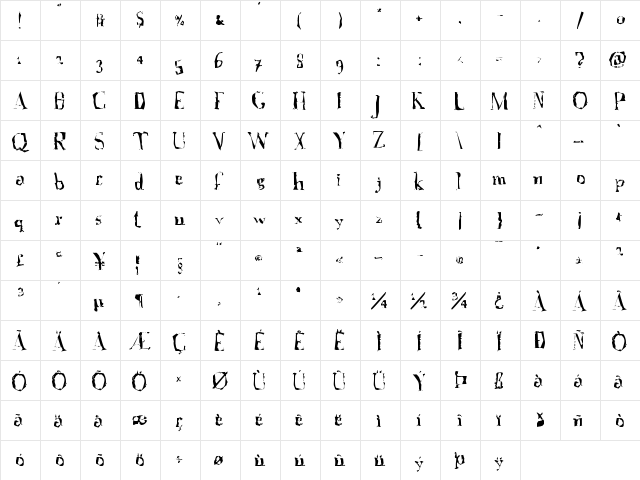
A Font with Serifs. Disordered Regular
Design Context for A Font with Serifs. Disordered Typeface
A Font with Serifs. Disordered brings classic typographic sensibility to the table — its serifs and measured letterforms reflect centuries of print heritage.
Pro Tip: Set A Font with Serifs. Disordered with slightly loose tracking in headlines to let each letterform's detail read clearly at display sizes.